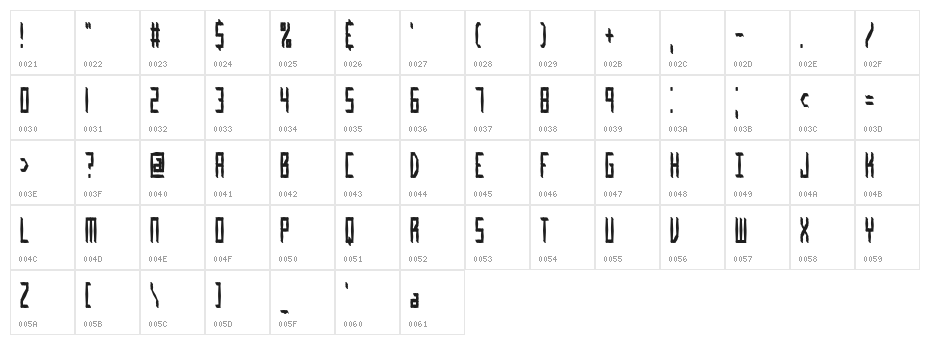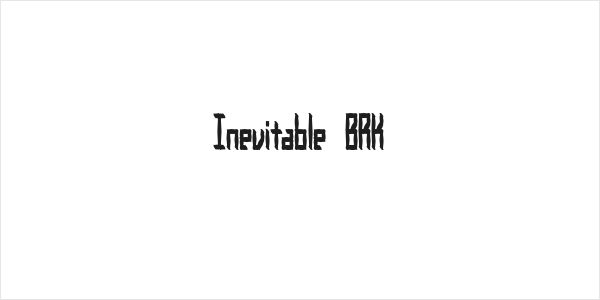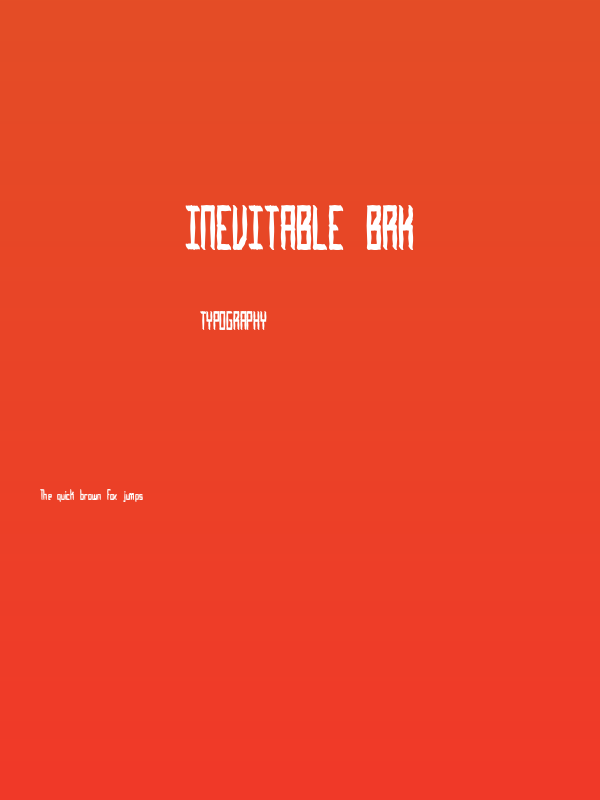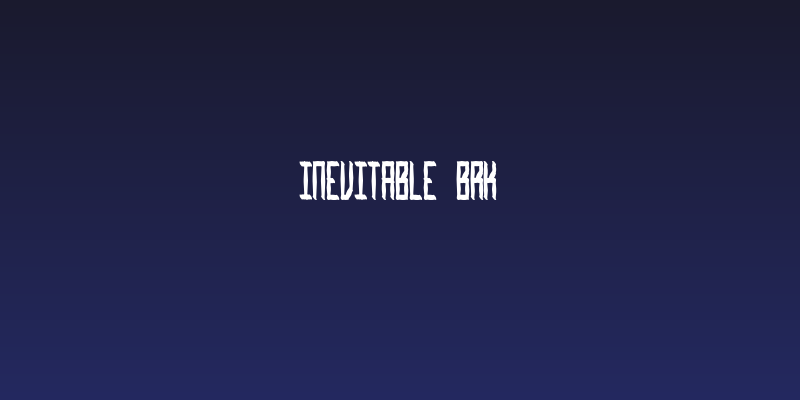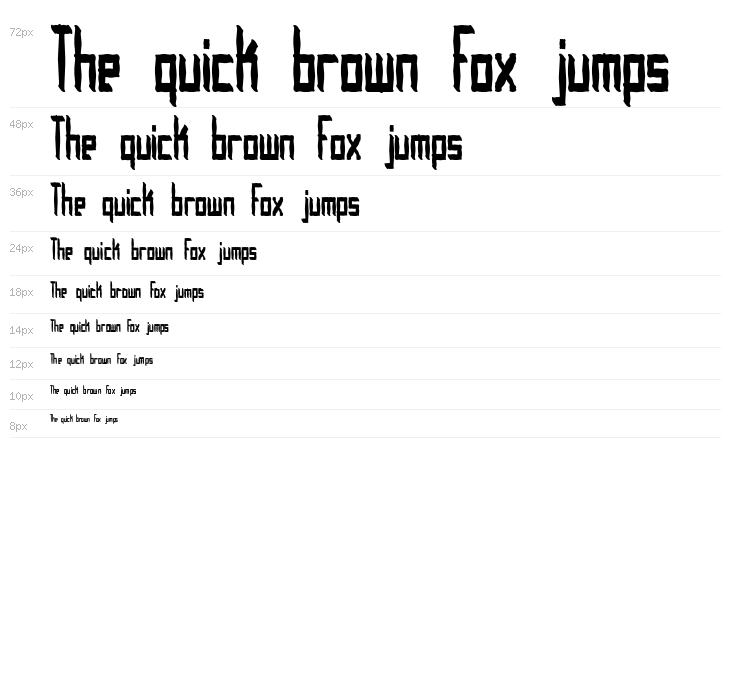
Inevitable BRK Font
Inevitable BRK Description
This font exhibits a bold and rugged style with a distinctly hand-drawn appearance. The characters are angular and slightly distorted, giving them a unique, edgy look. The uppercase and lowercase letters maintain a consistent height, contributing to a uniform yet dynamic aesthetic. The numbers and special characters follow the same design principles, ensuring a cohesive visual identity across all glyphs. The font's irregular strokes and rough edges suggest a sense of movement and energy, making it stand out in any design context.